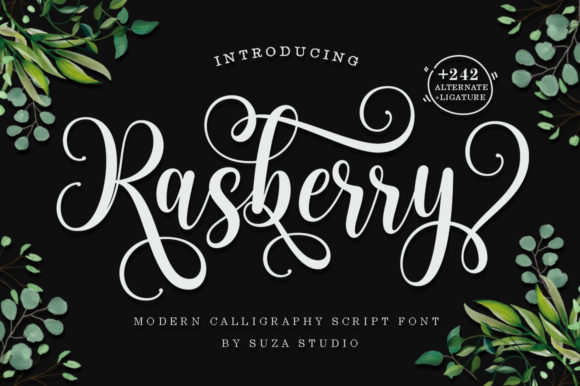
Behold the masterpiece of calligraphy, Rasberry Font, a script font that exudes grace and beauty in every stroke. Created by the talented Suza Studio, Rasberry is an artistic tribute to the art of handwriting, reimagined for the digital age. With its elegant curves and sweeping lines, this font will add an undeniable touch of sophistication to your creative endeavors.
What sets Rasberry apart is its inherent charm and versatility. Whether you're crafting heartfelt letters, creating eye-catching social media posts, or designing stunning logos, Rasberry effortlessly adapts to your vision, amplifying your message with its timeless allure. Its carefully crafted glyphs and ligatures offer endless possibilities for exploration, allowing you to unleash your creativity and leave a lasting impression on your audience.
Immerse yourself in the world of Rasberry, where each character dances across the page with a life of its own. Experience the joy of effortless penmanship, as Rasberry's graceful strokes flow together seamlessly, captivating your readers with their inherent charm. Elevate your designs, make your words sing, and create masterpieces that transcend time.
With Rasberry, you hold the key to unlocking a world of creative possibilities. Transform your digital creations into works of art, leaving an unforgettable mark on the hearts and minds of your audience. Embrace the beauty of Rasberry today and embark on a journey of creative fulfillment.